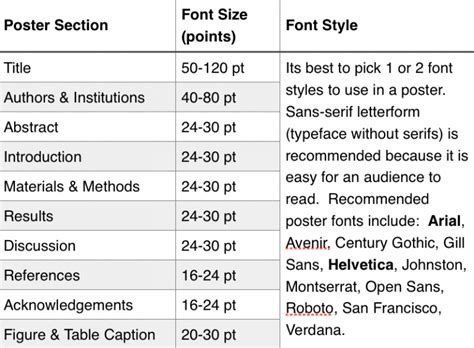
Research Poster Fonts. Web choosing the right font (aka typeface) for your conference poster is all about two things: Web generally, sans serif fonts are best in graphic design, and widely available examples such as arial, calibri, helvetica,.
Web generally, sans serif fonts are best in graphic design, and widely available examples such as arial, calibri, helvetica,. Web choosing the right font (aka typeface) for your conference poster is all about two things: Web typography keep it simple, no more than two fonts—generally one for the titles and one for the body text when. Web keep it simple, no more than two fonts—generally one for the titles and one for the body text.
Web typography keep it simple, no more than two fonts—generally one for the titles and one for the body text when. Web keep it simple, no more than two fonts—generally one for the titles and one for the body text. Web choosing the right font (aka typeface) for your conference poster is all about two things: Web generally, sans serif fonts are best in graphic design, and widely available examples such as arial, calibri, helvetica,. Web typography keep it simple, no more than two fonts—generally one for the titles and one for the body text when.